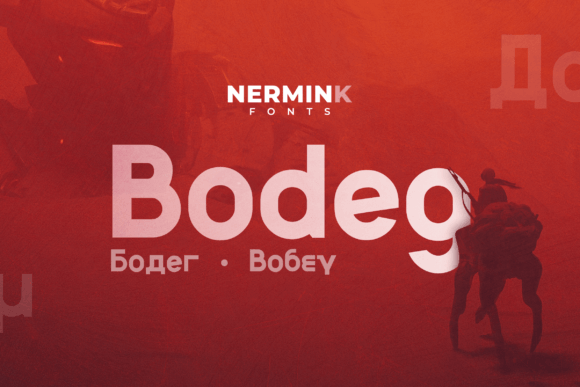
As a designer, there’s nothing quite like the thrill of landing on the perfect font for a project. You’ve spent hours pouring over options, trying to find that elusive combination of style and functionality. And then, it happens – you stumble upon a font that just feels right. For many designers, that font is Bodeg Font, a modern and cool-looking sans serif font that’s quickly become a go-to choice for creatives everywhere.
Bodeg Font is designed to stand out from the crowd while maintaining a clean design that makes it adaptable to any situation. With its perfect balance of sharp and curved edges, it’s the perfect choice for designers looking to add a touch of sophistication to their projects.
Bodeg Font Key Features
- Font Family: Bodeg Font is a sans-serif font family that offers a unique blend of modern and vintage characteristics.
- Character Set: The font family includes a wide range of characters, including uppercase and lowercase letters, numbers, punctuation marks, and special characters.
- Resolution: Bodeg Font is designed to be scalable and resolution-independent, making it suitable for use in a variety of applications, including print, web, and digital media.
- Size: The font family includes a range of font sizes, from 8pt to 72pt, making it suitable for use in a variety of contexts, including body text, headings, and display typography.
- Unique Characteristics: Bodeg Font features a distinctive blend of modern and vintage characteristics, including a geometric shape, clean lines, and a subtle distressed texture.
Bodeg Font Review
As a designer, I was excited to dive into the Bodeg font. Here are my honest thoughts on what works and what doesn’t.
- The Bodeg font has a unique and quirky feel that’s perfect for creative projects.
- The font is highly legible, even at smaller sizes, making it suitable for body text.
- The font family includes a range of weights and styles, giving designers plenty of options for customization.
- The font is highly versatile and can be used in a variety of contexts, from logos to packaging to editorial design.
- The font may be too playful for more formal or corporate projects.
- The font’s unique style may not be to everyone’s taste, and some designers may find it too quirky or distracting.
- The font may not be suitable for projects that require a lot of text, as the playful feel may become overwhelming.
The Bodeg font is a great addition to any designer’s toolkit, but it’s essential to use it judiciously. While it’s perfect for creative projects, it may not be the best choice for more formal or corporate work. With its unique style and versatility, the Bodeg font is sure to add a touch of personality to any design project.
For best results, use Bodeg Font in conjunction with other modern sans-serif fonts to create a cohesive design. Experiment with different font sizes and styles to achieve the desired look.
Bodeg Font is suitable for a variety of graphic design projects, including:
- Website headers and footers
- Infographics and presentations
Great Vibes Font is similar to Bodeg Font in its playful and creative vibe, but it has a more refined and polished look. While Bodeg Font has a more rustic and distressed feel, Great Vibes Font is smoother and more refined.
Alex Brush Font is a beautiful and elegant script font that is perfect for designers looking to add a touch of sophistication to their projects. It is ideal for use in invitations, wedding designs, and other creative projects where a unique and stylish font is needed.
Q: Is Bodeg Font optimized for screen display?
Yes, Bodeg Font is carefully designed and optimized for screen display. It includes features such as hinting and sub-pixel rendering, which help to improve the font’s appearance on various devices and screen resolutions.